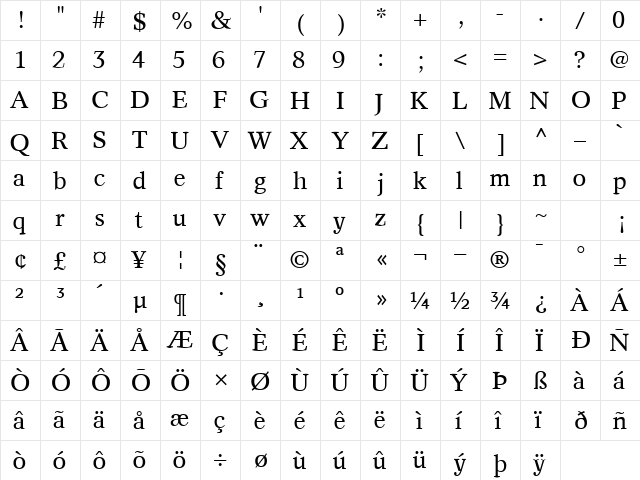
InformaticsSSK Regular Font Preview
InformaticsSSK Regular
Design Context for InformaticsSSK Typeface
InformaticsSSK offers clean, dependable letterforms without strong stylistic allegiance, making it a practical choice for designers who need flexibility.